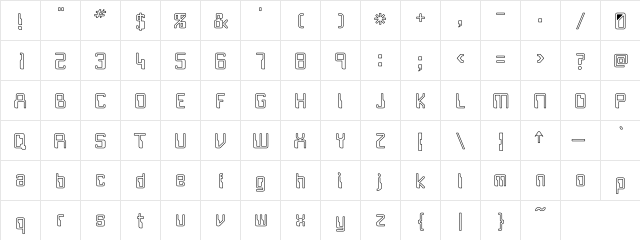
Future Hollow Regular
Design Context for Future Hollow Typeface
Future Hollow channels digital-age aesthetics through its sharp, structured letterforms — ideal for brands that want to signal innovation.
Pro Tip: Use Future Hollow in combination with a neutral sans for body text. Let it define the brand voice in headlines while keeping reading comfortable elsewhere.